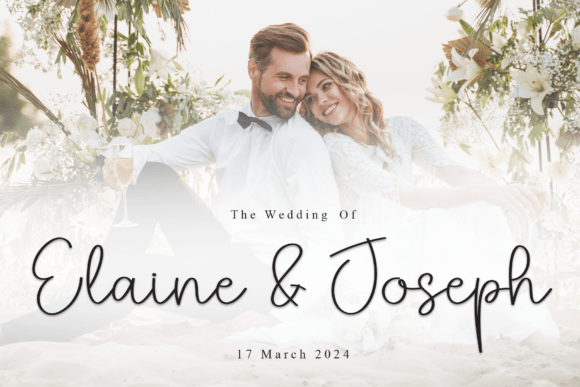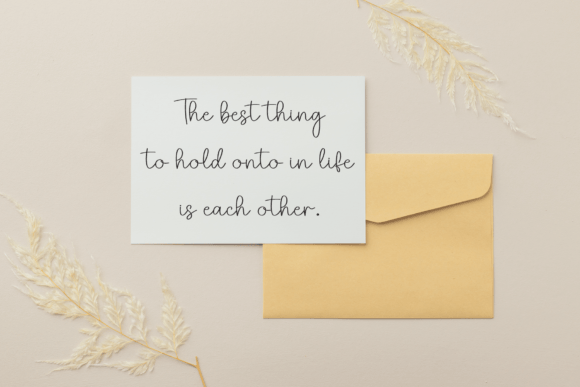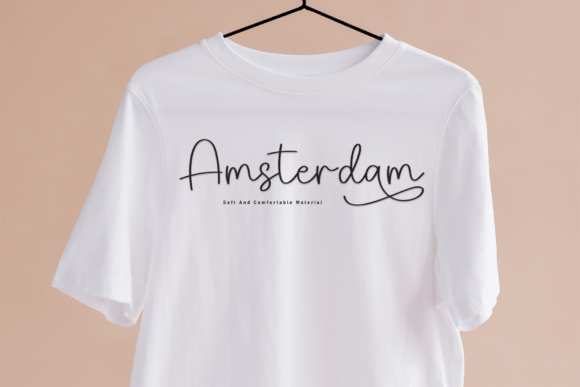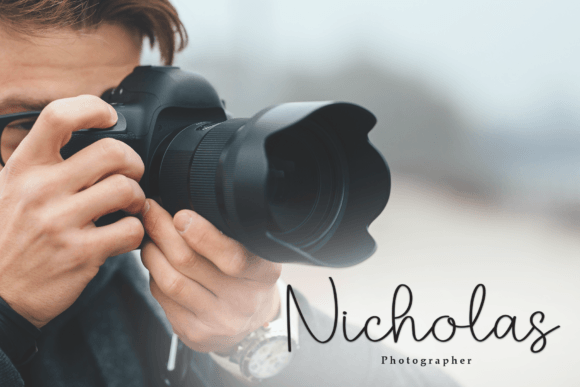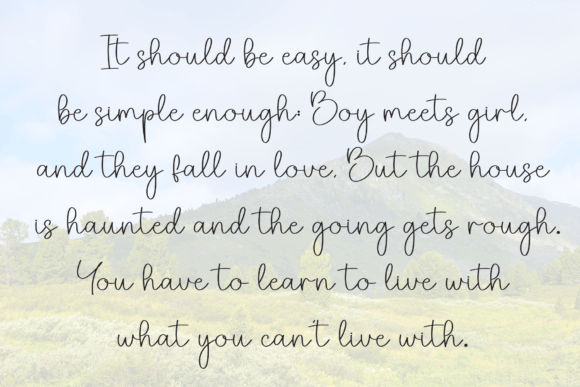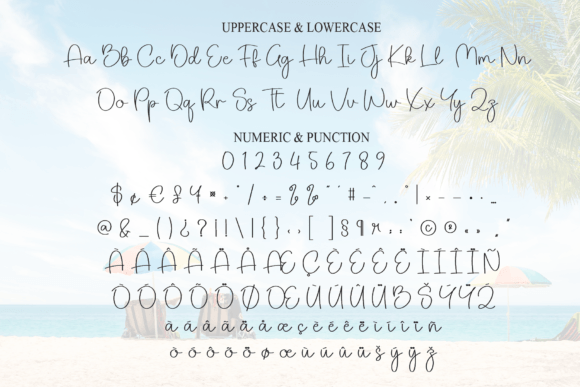
Where Creativity Meets Serenity: The Allure of Beach Font
Have you ever found yourself lost in the rhythmic lapping of waves against the shore, feeling the stress of the day melt away with each gentle motion? For designers, that feeling can be replicated in the strokes and curves of a well-crafted font – like Beach Font. This charming handwritten script exudes elegance and sophistication, inviting you to immerse yourself in its fluid beauty.
Beach Font is the perfect companion for designers seeking to add a touch of whimsy and romance to their projects. Whether it’s an invitation, a greeting card, or a branding campaign, this versatile font effortlessly elevates the aesthetic of any design. With its delicate strokes and soft curves, Beach Font brings a sense of serenity and refinement to even the most mundane tasks, making it a valuable addition to any designer’s toolkit.
Beach Font Key Features
- Font Style: A casual, handwritten font with a relaxed, beach-inspired feel.
- Unique Characteristics: Distinctive swashes and flourishes, giving it a unique, hand-written feel.
Beach Font Review
Overall, I found “Beach Font” to be a charming, whimsical font that could add a touch of personality to various design projects. ✨ The font’s irregular shapes and fluid connections between letters evoke a sense of movement and freedom, reminiscent of the ocean’s waves.
- ✨ Unique, hand-drawn feel that sets it apart from more traditional fonts
- ✨ Suitable for projects that require a relaxed, casual tone, such as beach-themed branding or summer-inspired marketing materials
- ✨ The font’s irregularities make it more readable at larger sizes, which can be beneficial for headlines and titles
- ⚠️ Limited versatility for formal or professional projects due to its casual nature
- ⚠️ The font’s irregularities can make it challenging to read at smaller sizes, potentially impacting readability in body text
While “Beach Font” has its limitations, it can be a great addition to a designer’s toolkit for the right projects. With careful consideration and use, this font can add a touch of personality and whimsy to designs that require a relaxed, casual tone.
Beach Font is a versatile font that works well for both graphic design and illustration projects.
Beach Font is perfect for:
- Coastal-themed designs, such as beach party invitations or surf school logos.
- Summer-themed projects, such as vacation brochures or outdoor recreation guides.
- Relaxed, casual designs, such as blog posts or social media graphics.
To get the most out of Beach Font, experiment with different font sizes, colors, and combinations with other fonts.
Alternatives to Beach Font
Pacifico is a beautiful, elegant script font that’s perfect for adding a touch of sophistication to your designs. It’s great for use in invitations, weddings, and other special occasions. When to use: formal events, elegant branding, and creative storytelling.
Comparison to Beach Font: Pacifico has a more refined and sophisticated feel, whereas Beach Font is more playful and casual. Pacifico is ideal for those who want a high-end, luxurious look, while Beach Font is better suited for a more relaxed, beachy vibe.
Great Vibes is a modern, elegant script font that’s perfect for creating a sense of relaxation and calmness. It’s great for use in travel, wellness, and lifestyle brands. When to use: travel websites, wellness retreats, and lifestyle blogs.
Comparison to Beach Font: Great Vibes has a more refined and sophisticated feel, whereas Beach Font is more playful and casual. Great Vibes is ideal for those who want a clean, modern look, while Beach Font is better suited for a more laid-back, beachy vibe.
Carolyna Pro is a modern, elegant script font that’s perfect for adding a touch of sophistication to your designs. It’s great for use in branding, advertising, and creative storytelling. When to use: luxury brands, high-end advertising, and creative storytelling.